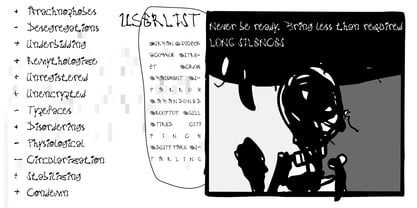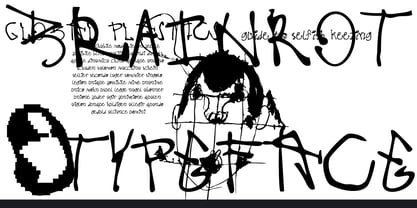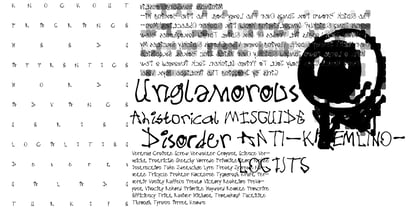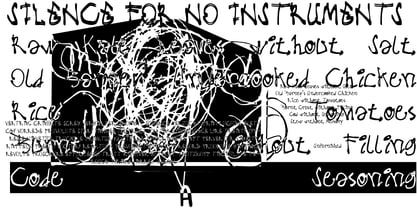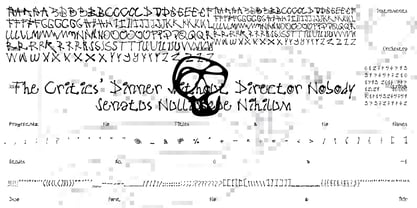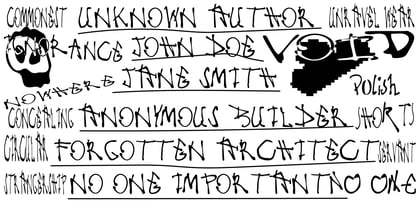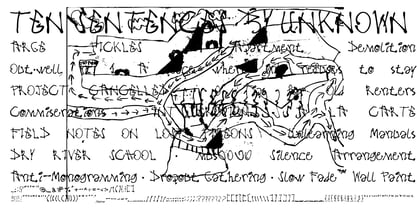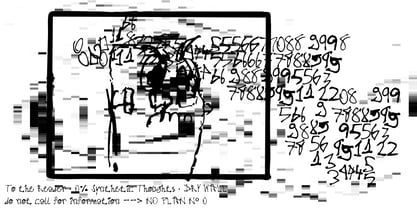
Brainrot
by Ali Güzel
The Brainrot Font Family was designed by Ali Güzel and published by Ali Güzel. Brainrot contains 1 styles.
Brainrot is a raw, expressive display typeface built around distortion, repetition, and visual tension. It challenges conventional typographic balance by embracing irregular strokes, restless contours, and deliberate instability. Inspired by overwritten notes, layered graffiti, and obsessive mark-making, Brainrot blurs the line between handwriting and deconstruction. Letters appear scratched, crossed, and reworked — creating a sense of movement and psychological intensity. This typeface is not neutral. It carries attitude. Brainrot performs best at large sizes where its unpredictable rhythm and textured forms can fully express themselves. It is ideal for: Experimental branding Album covers and music visuals Editorial headlines Streetwear graphics Posters and cultural projects Zine-inspired layouts Despite its chaotic appearance, Brainrot is carefully constructed to maintain readability while preserving its raw energy. If you’re looking for something clean and quiet, this isn’t it. If you’re looking for something bold and disruptive, Brainrot delivers.
About Ali Güzel
Ali Güzel Foundry is a type foundry based in Turkey, offering contemporary, aesthetically pleasing, and innovative typography designs. Ali Güzel, the founder of the foundry, who draws inspiration from minimalist design principles, geometric shapes, and modernism. His typefaces are recognized for their exceptional quality and legibility. Additionally, Ali specializes in logo design, brand identity, and user experience, making his foundry an ideal choice for clients looking for a comprehensive design solution. He shares his work and design process on his Instagram account, providing a window into his artistic vision and the inspiration behind his designs.@algzl